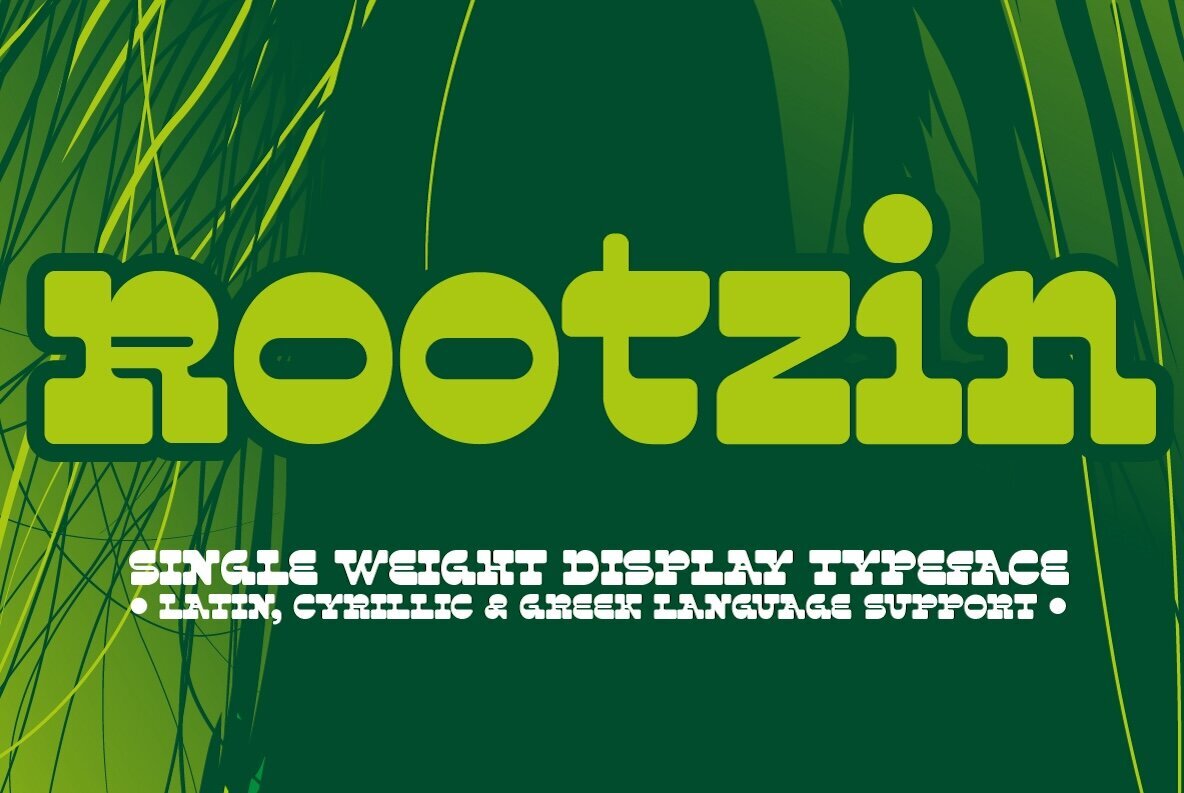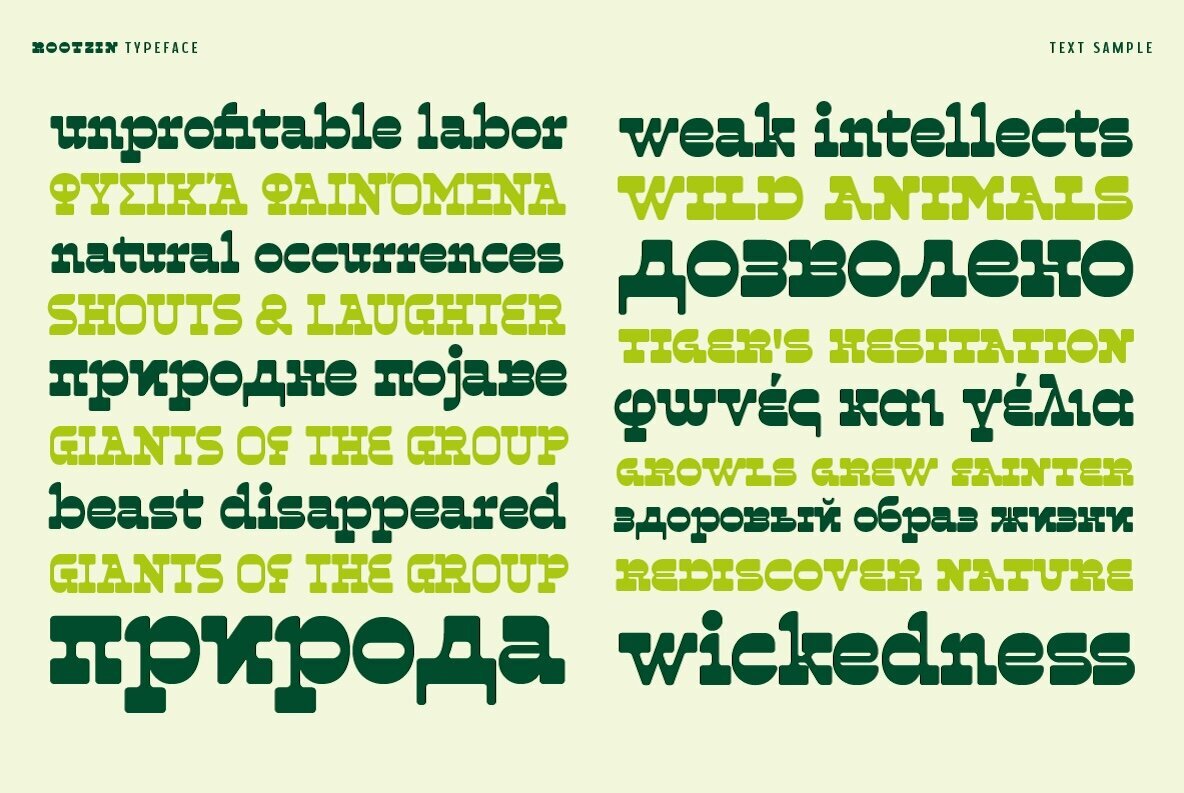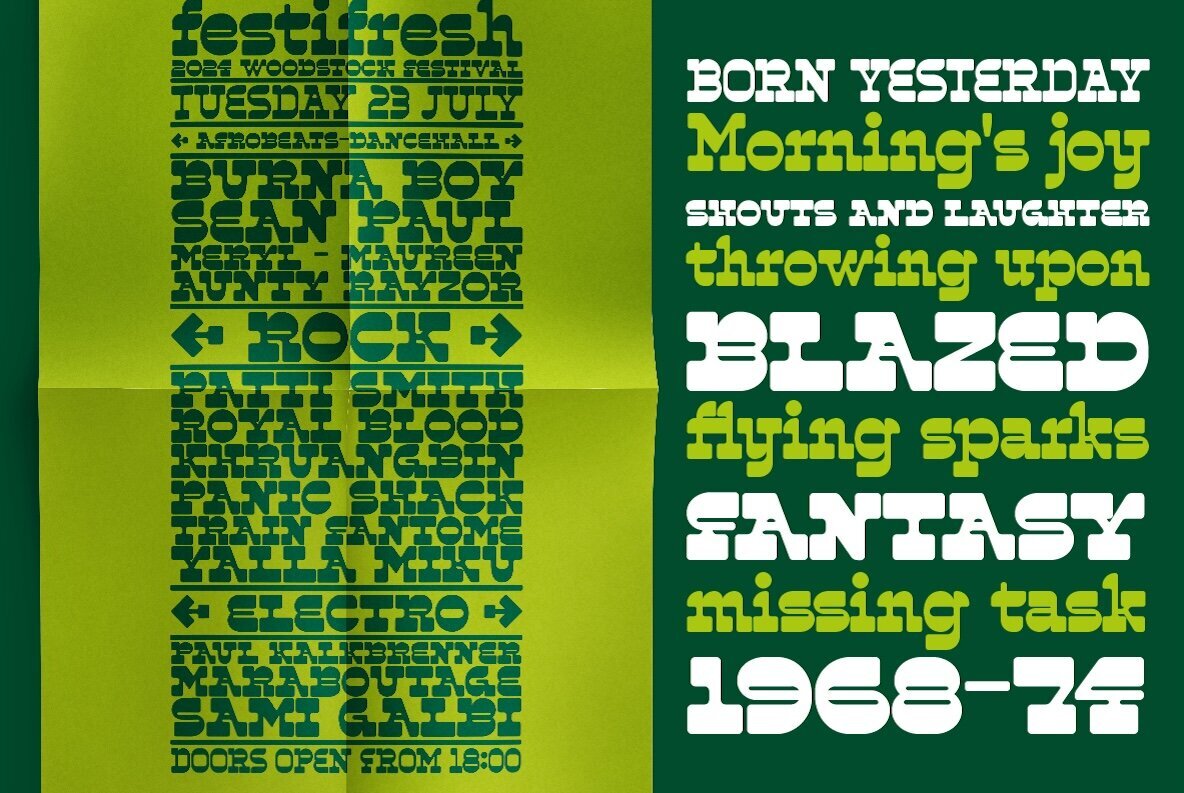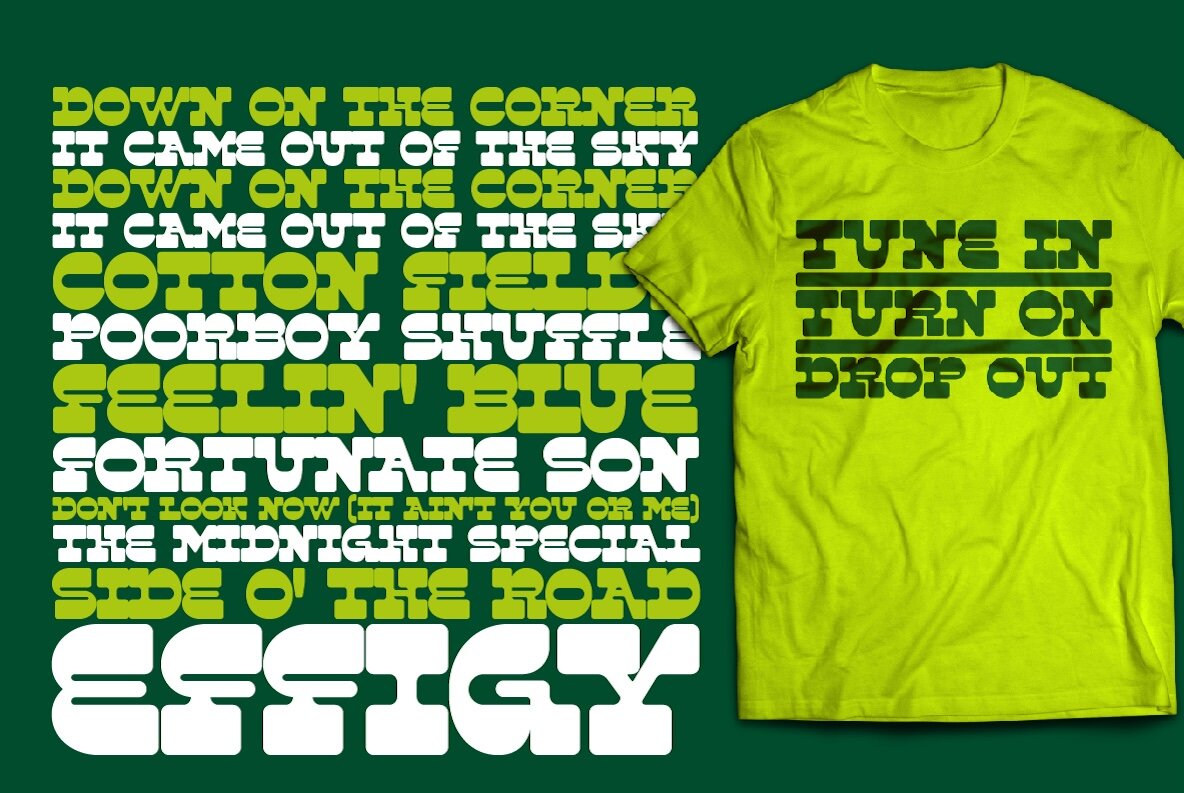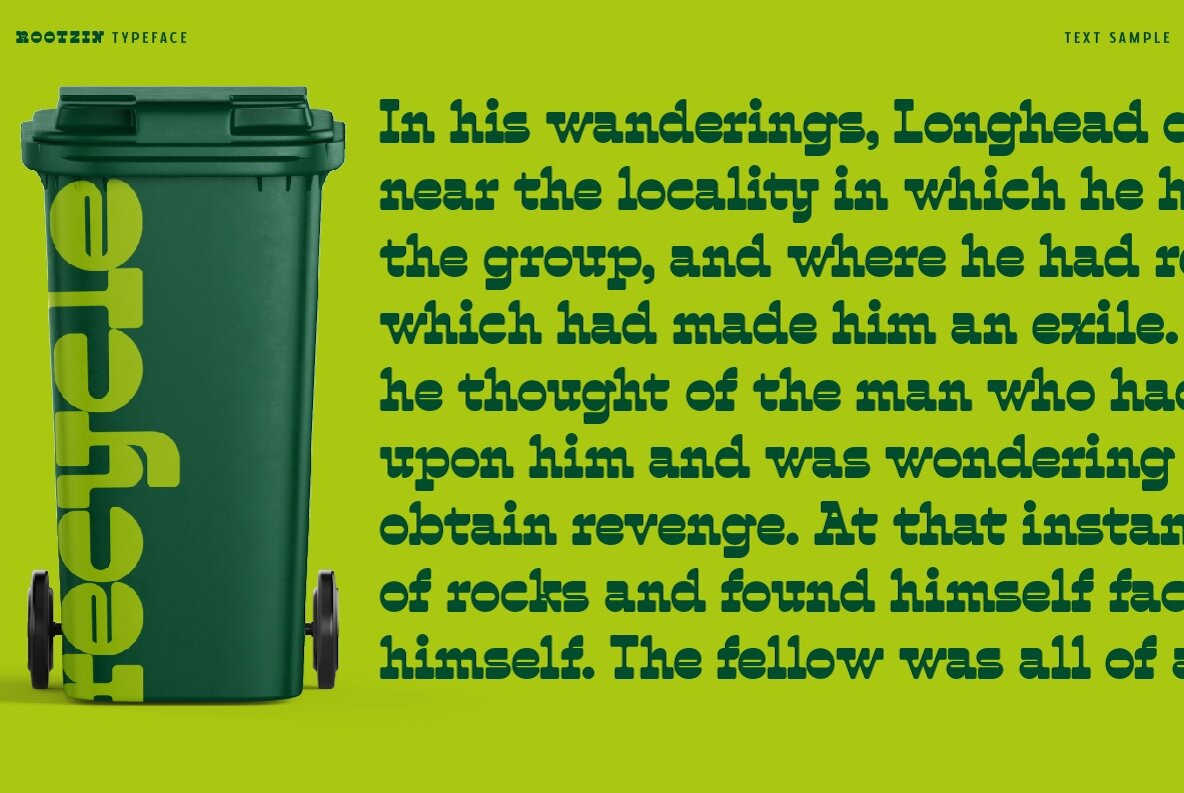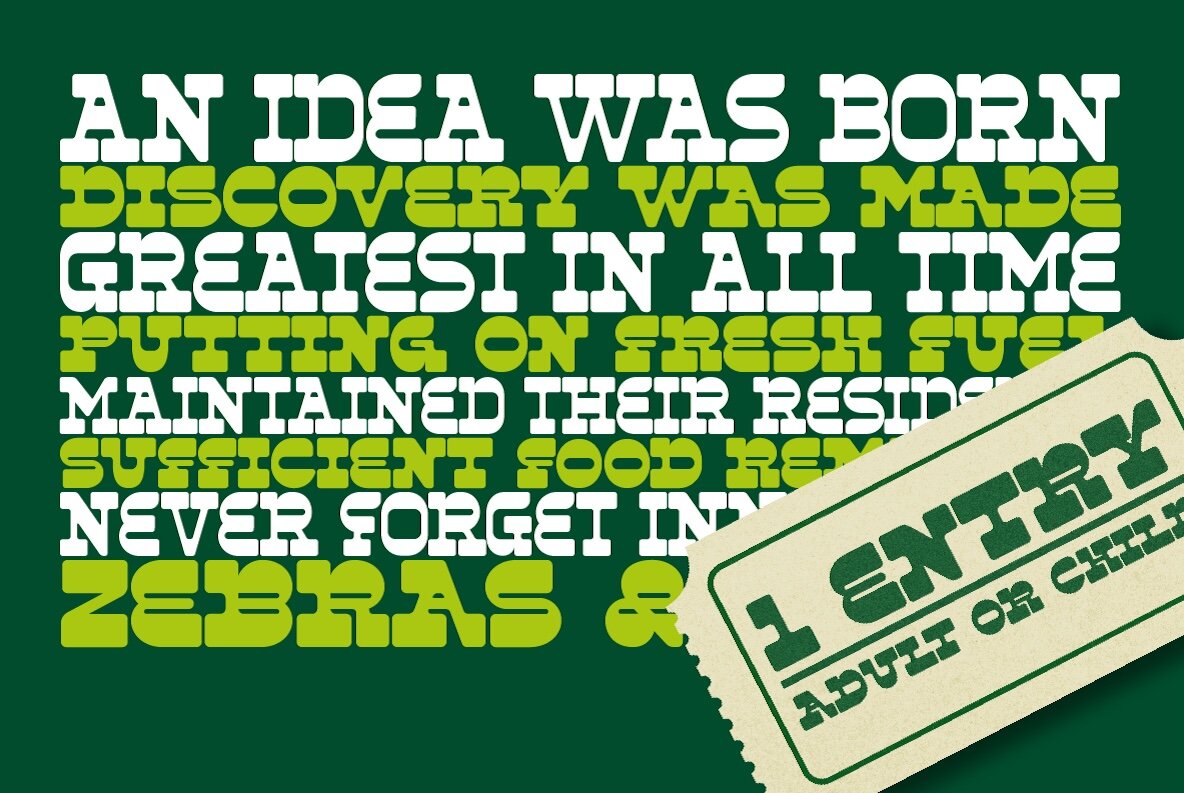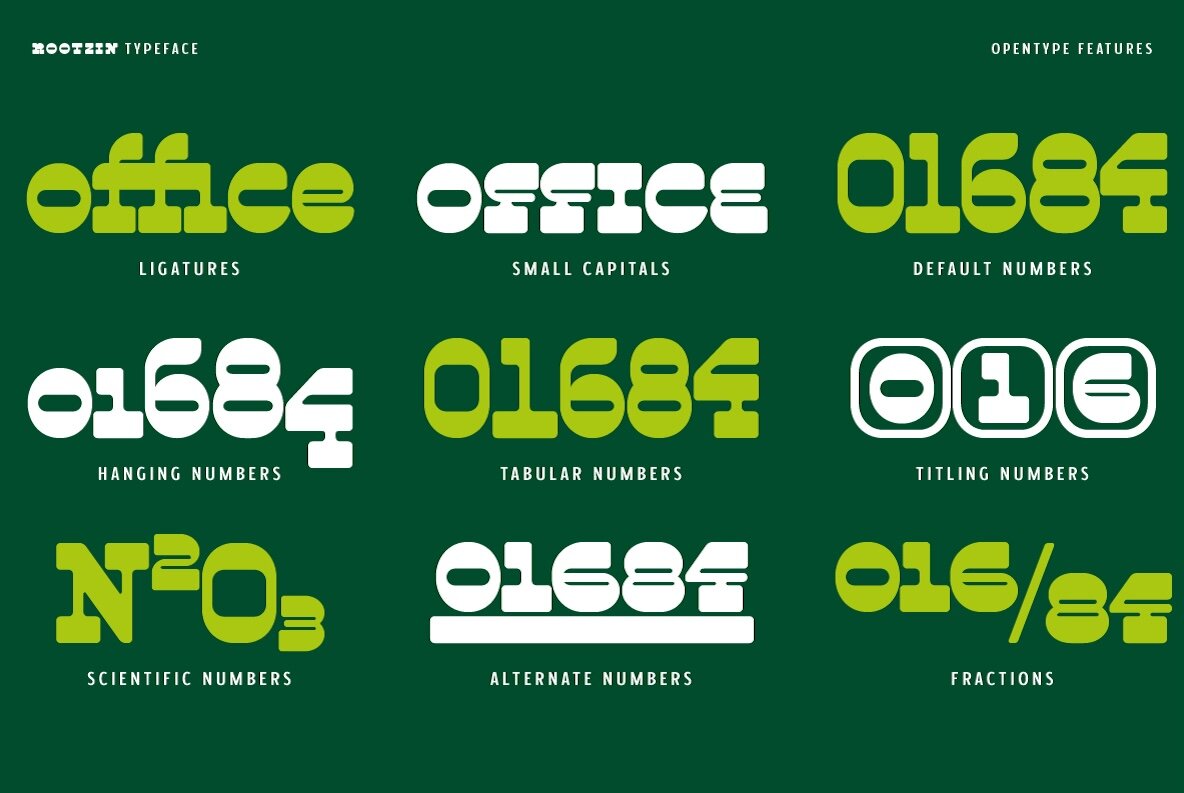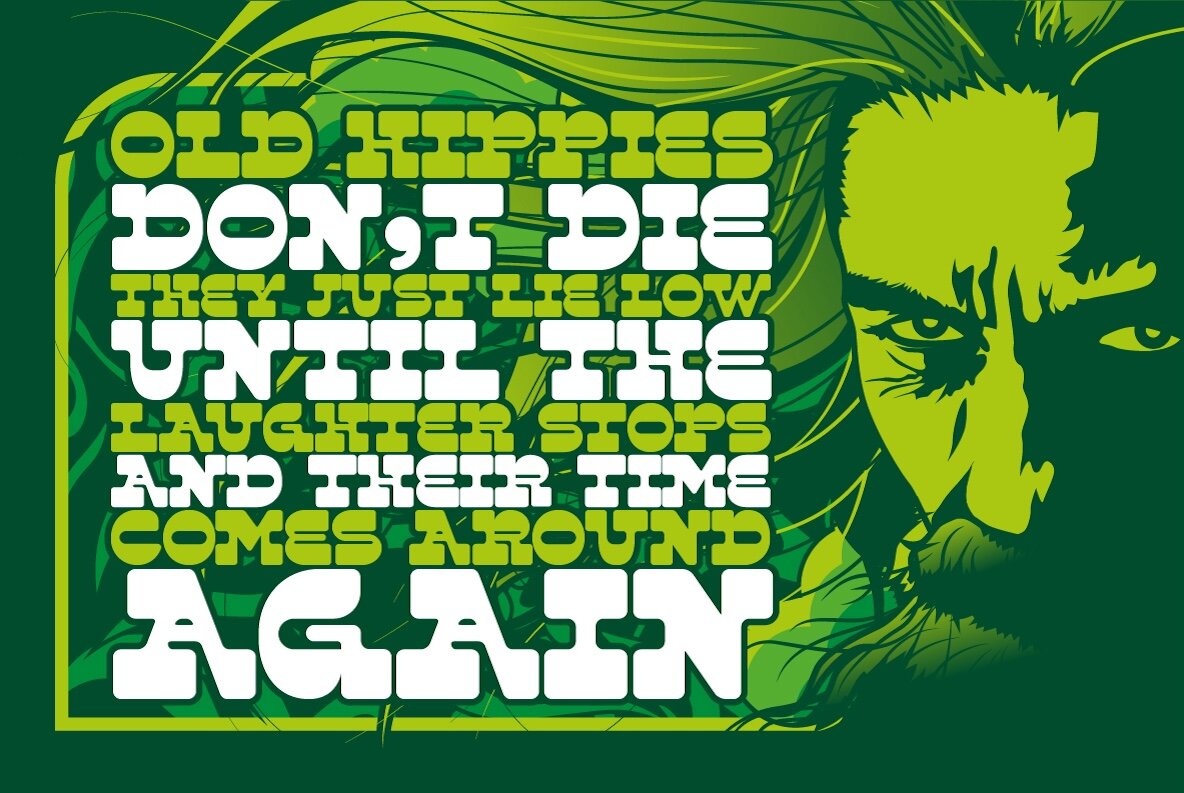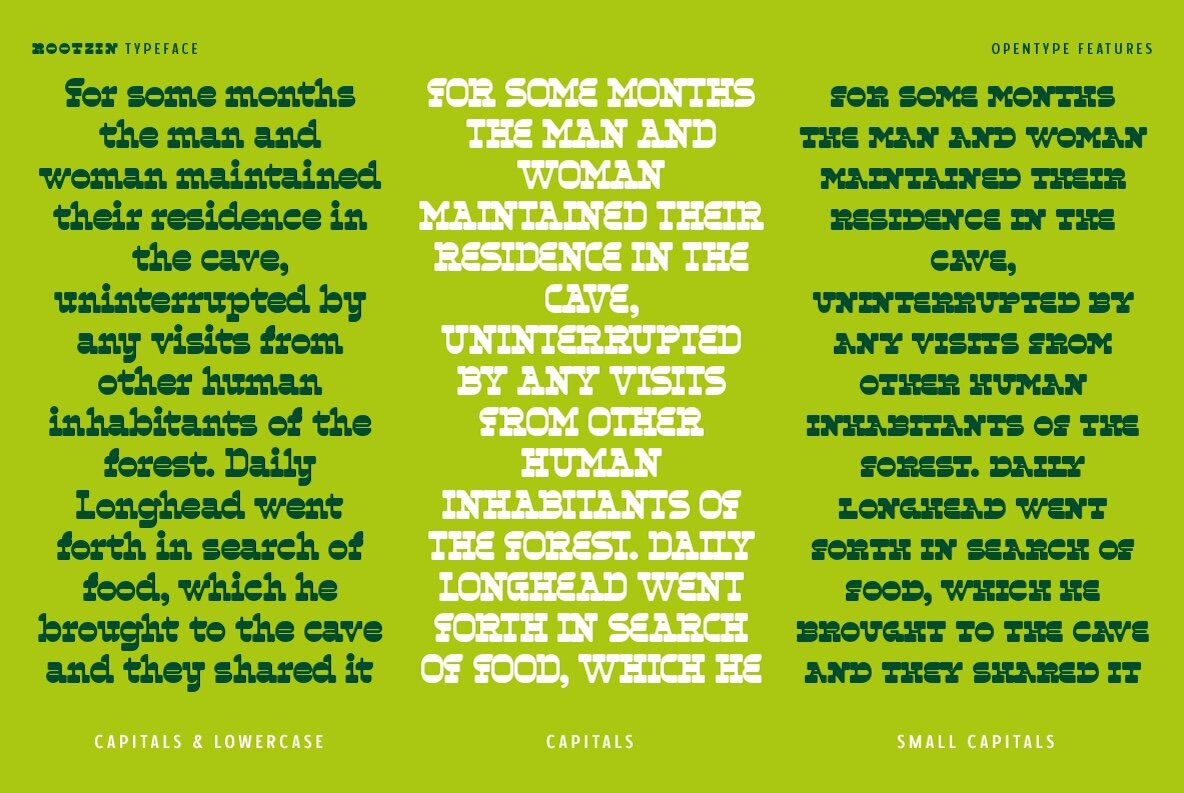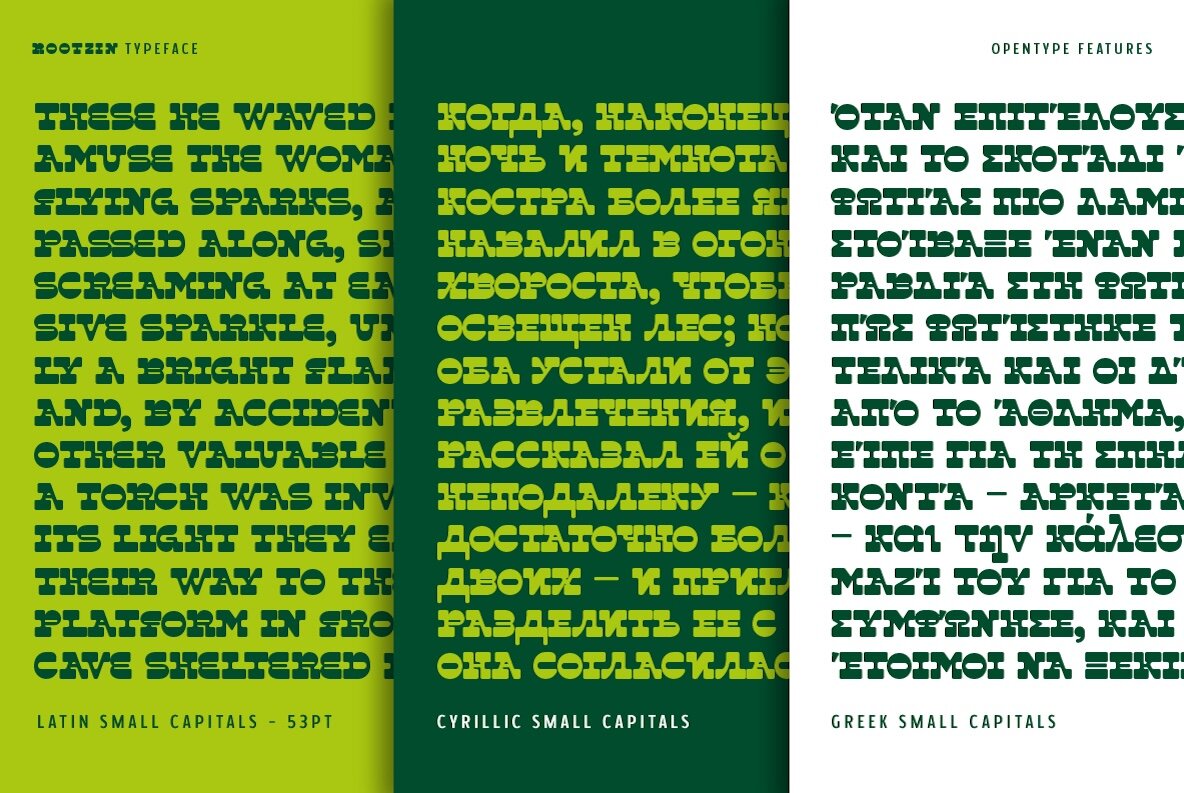
Rootzin Font
Rootzin Typeface
Rootzin is a distinctive reverse contrast slab serif typeface, ideal for bold headlines and prominent display. Crafted for maximum impact, this typeface includes OpenType features that provide a multitude of design options. The inclusion of small capitals and various numeral styles ensures a flexible approach to creative layouts.
With an extensive character set, Rootzin caters to multiple scripts, including Latin, Greek, and Cyrillic, making it a versatile tool for multilingual projects. Its robust and striking form is designed to command attention, whether used in print or digital formats.
- Reverse Contrast Slab Serif
- OpenType Features Including Small Capitals
- Variety of Numeral Styles for Design Flexibility
- Expanded Character Set: Latin, Greek, Cyrillic
Rootzin stands as a bold expression of design, offering both originality and adaptability without compromising on clarity and legibility. Ideal for designers seeking to make a statement, Rootzin provides both aesthetic appeal and functional versatility.